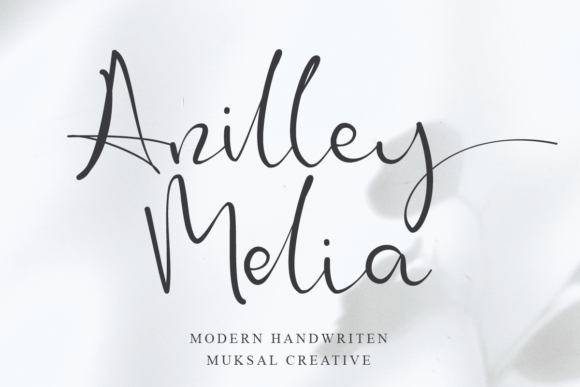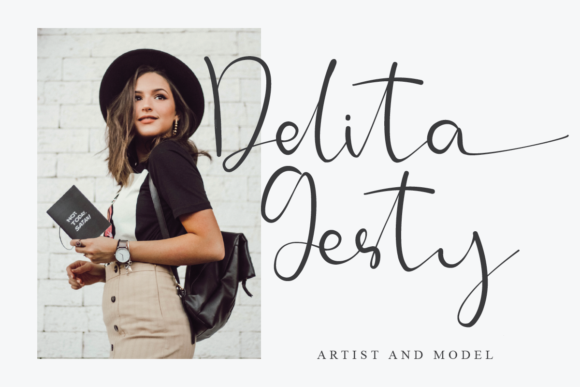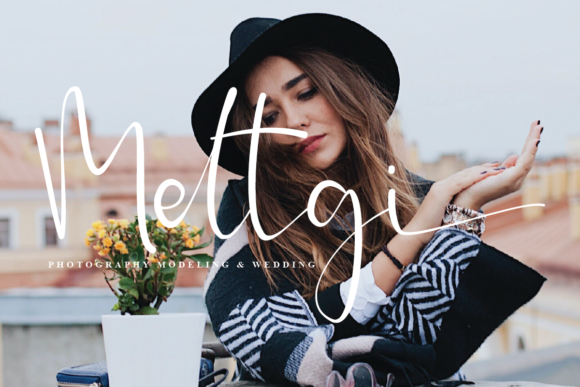
About Anilley Melia Font
Anilley Melia is a lovely script font featuring charming, playful characters that seem to dance along the baseline. Add this font to your most creative ideas, and notice how it makes them stand out!